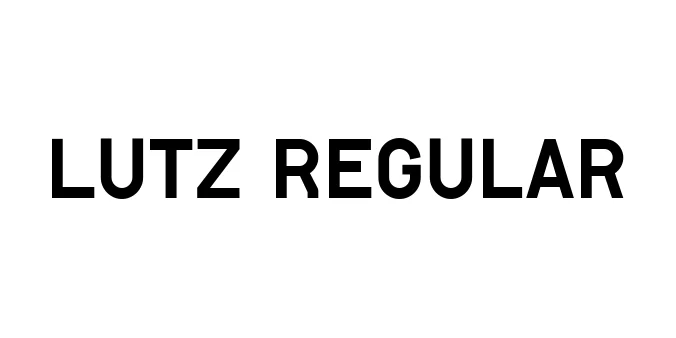
Lutz Regular
Designed by Brian J. Bonislawsky
Lutz Regular is a distinct typographic creation that draws heavy inspiration from the bold, authoritative styles of mid-century display lettering. Often characterized by its strong vertical presence and balanced proportions, the font was designed to capture the essence of industrial-age headlines while maintaining a clean, modern aesthetic suitable for contemporary digital and print media.
The typeface is widely recognized for its high readability even at large scales, making it a favorite for graphic designers working on posters, editorial layouts, and branding projects. Its straightforward construction avoids unnecessary flourishes, allowing the core geometry of each character to communicate strength and reliability across various visual contexts.
Lutz Regular Best Uses
Perfect for high-impact titles and newspaper-style headers.
Ideal for logos that require a sense of stability and strength.
Highly effective for event announcements and large-scale advertisements.
Suitable for magazine covers and pull quotes that need to grab attention.